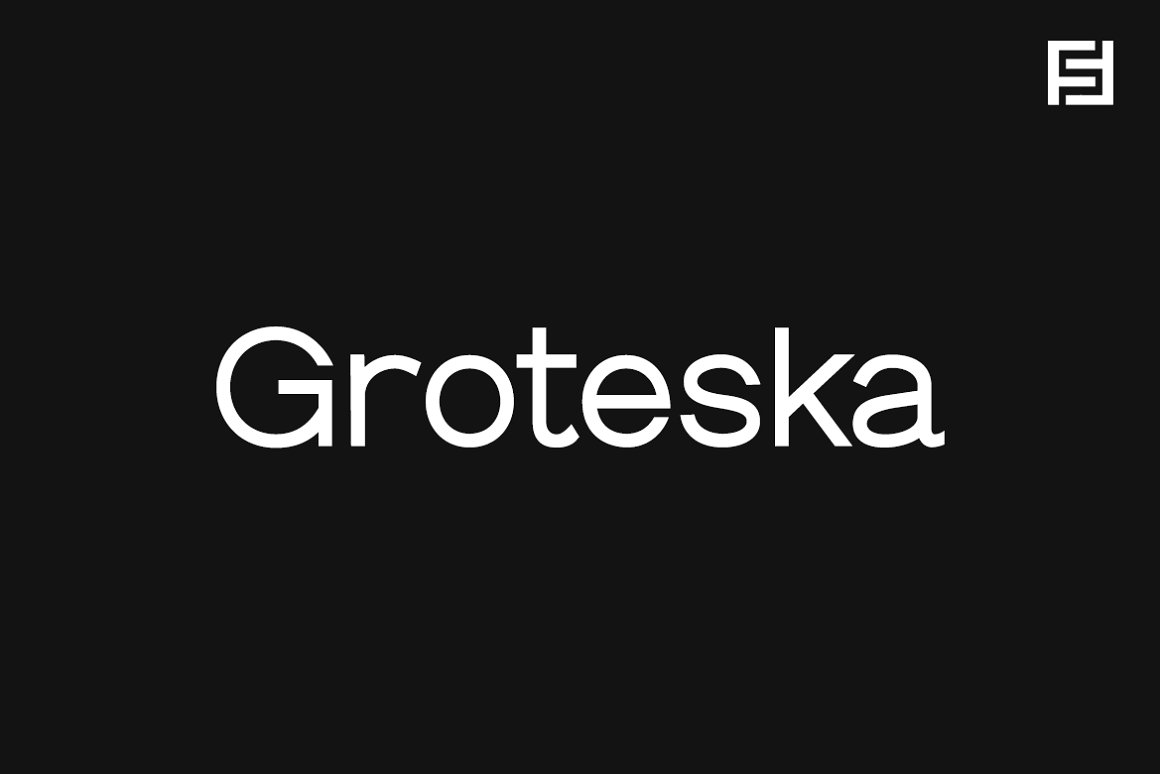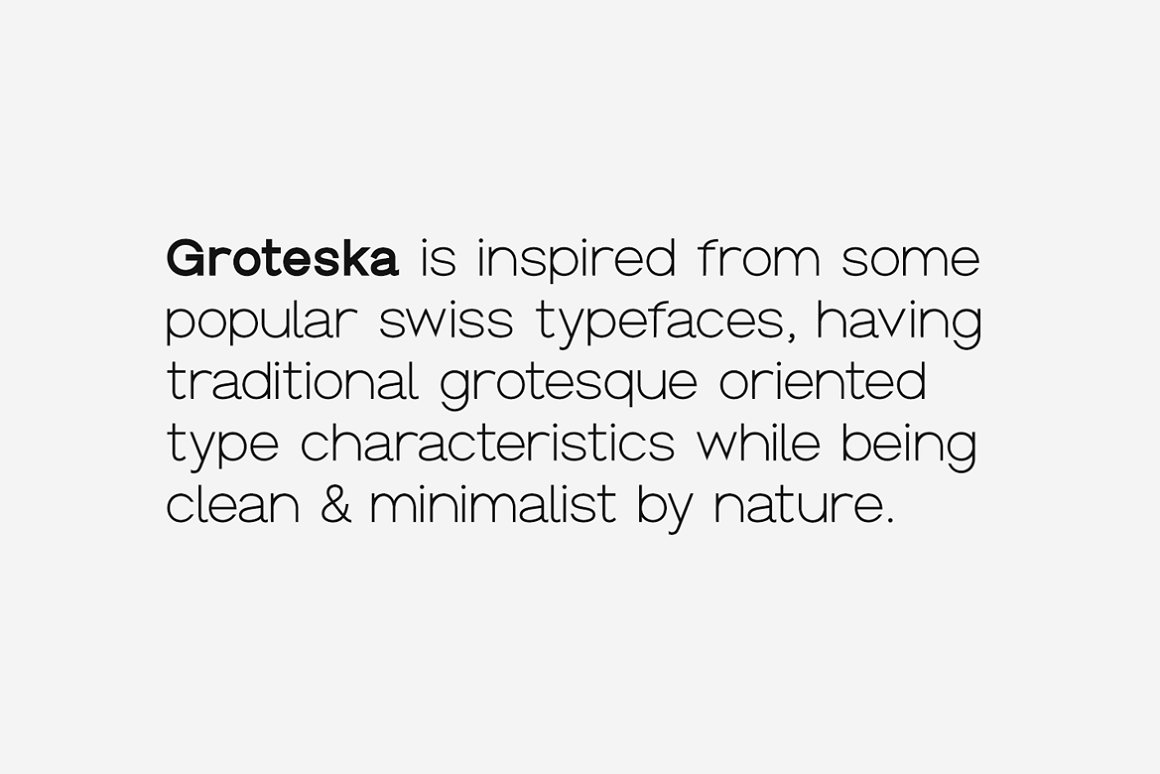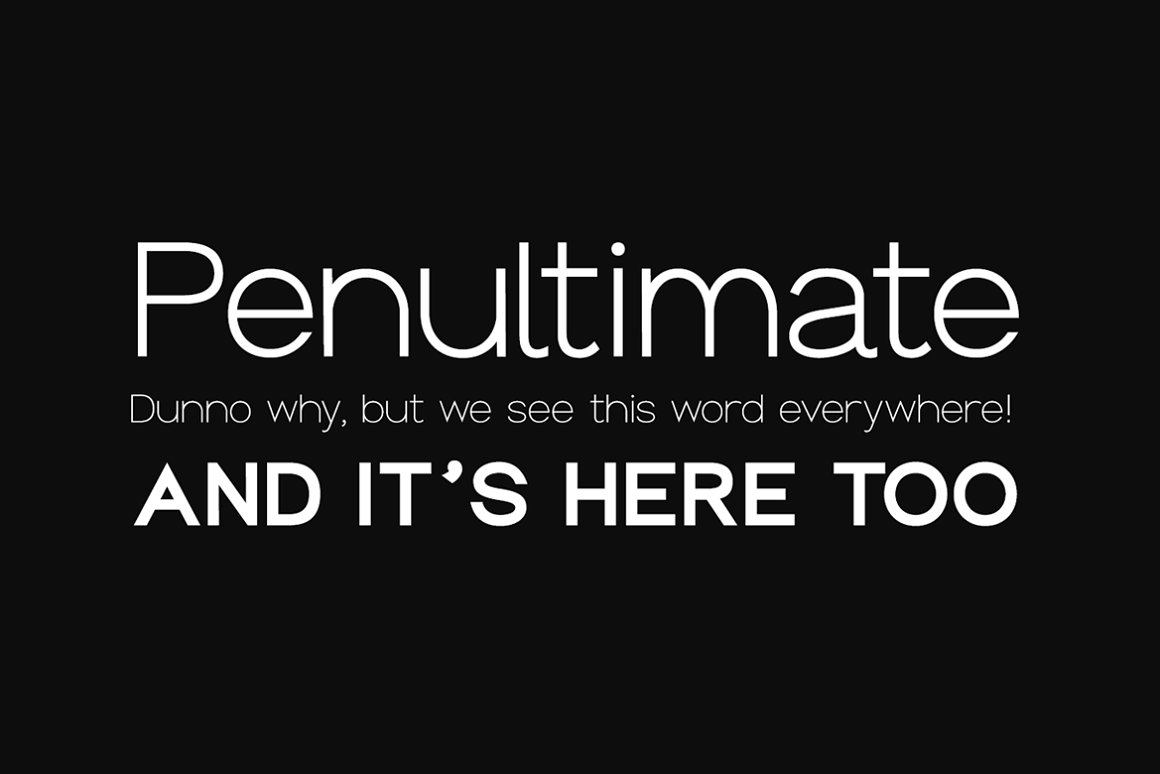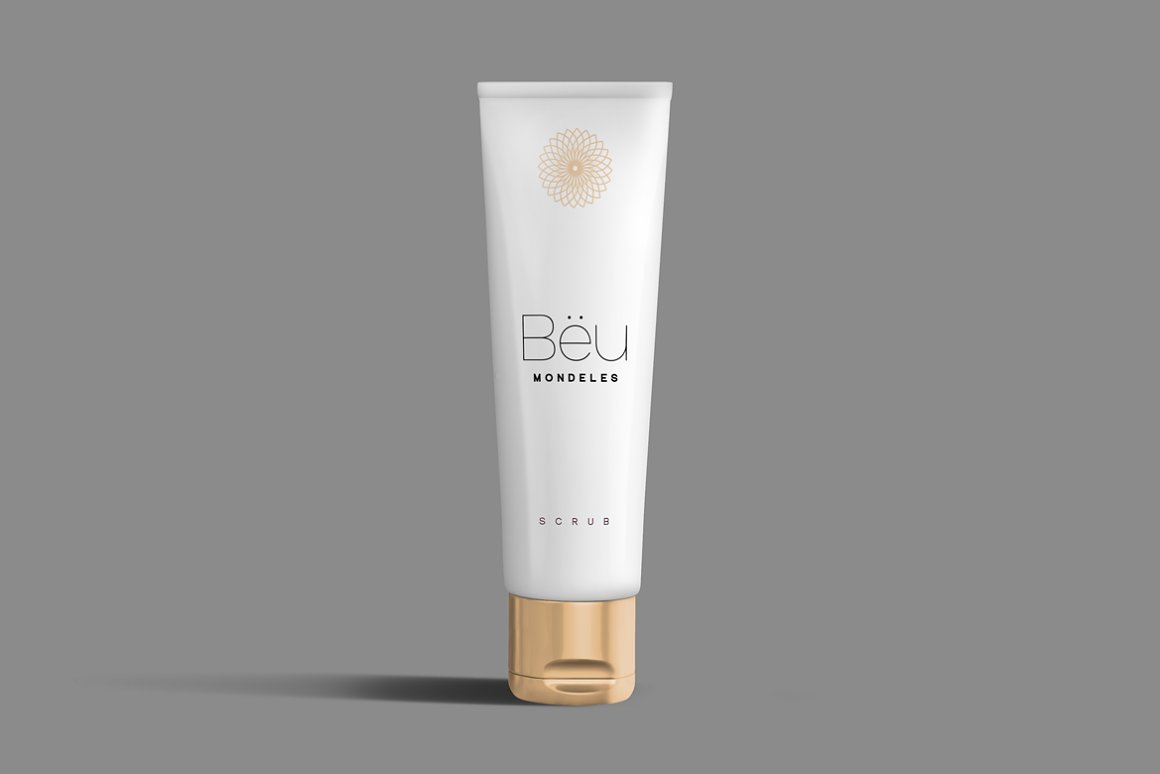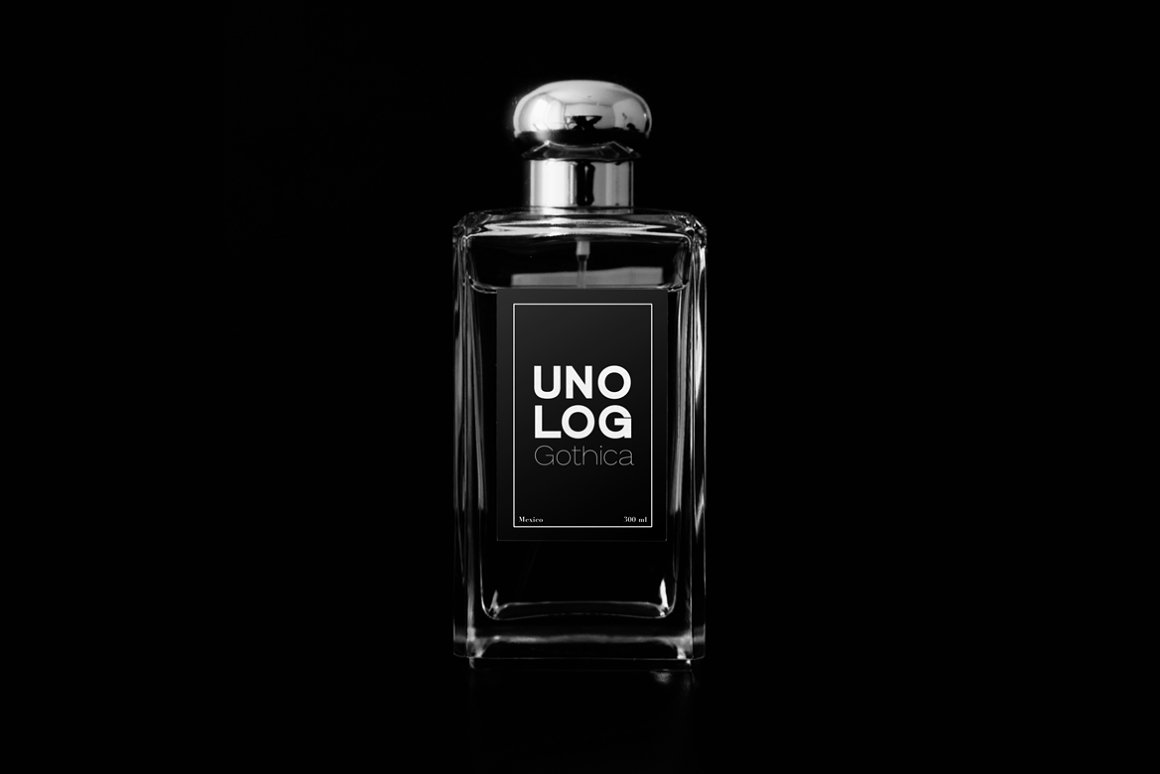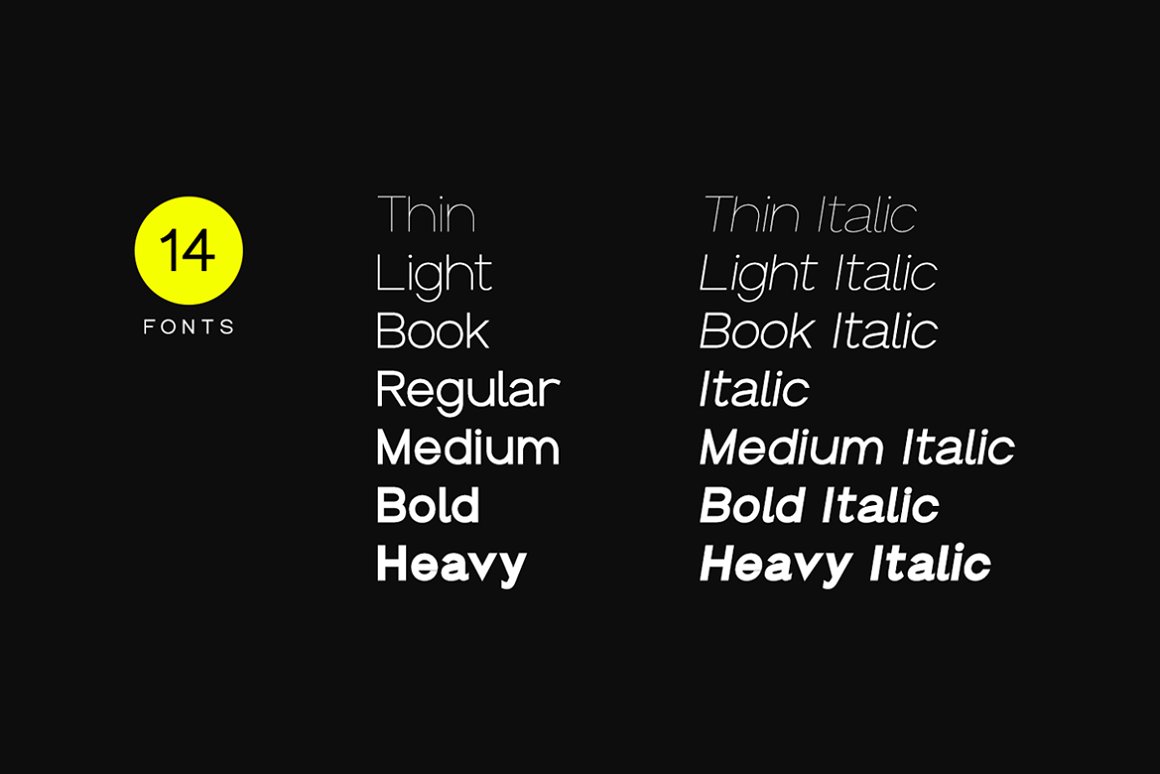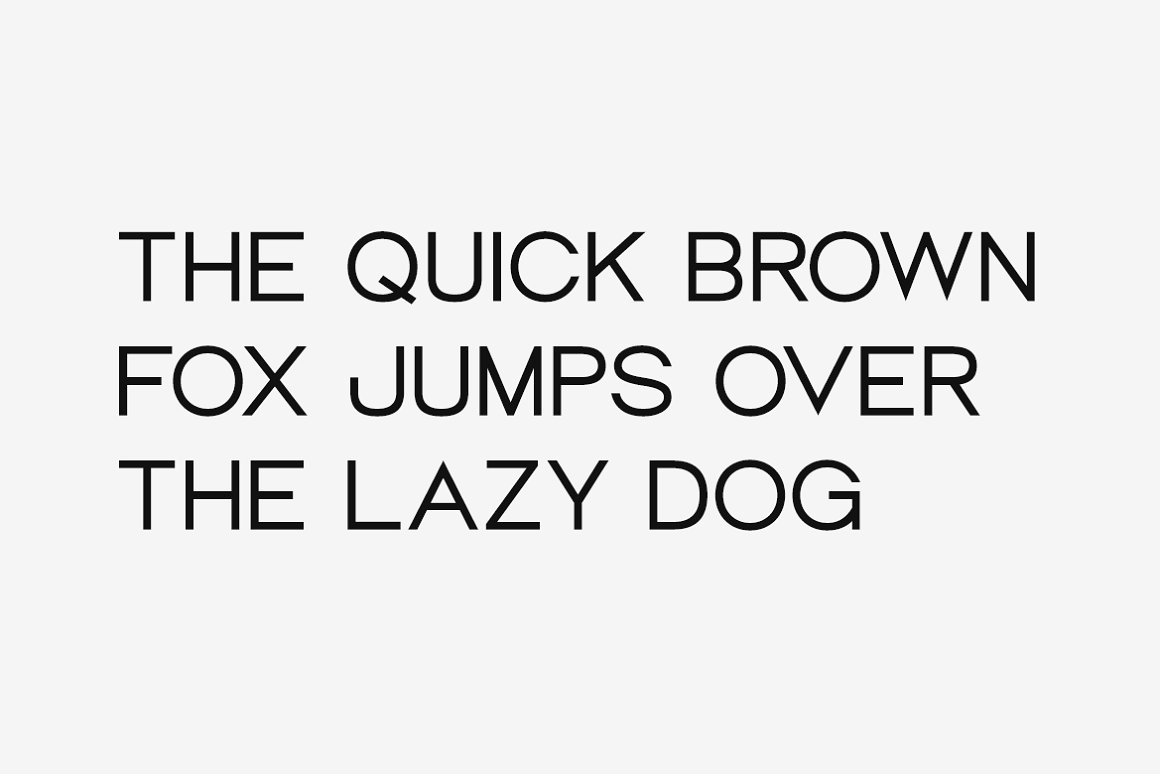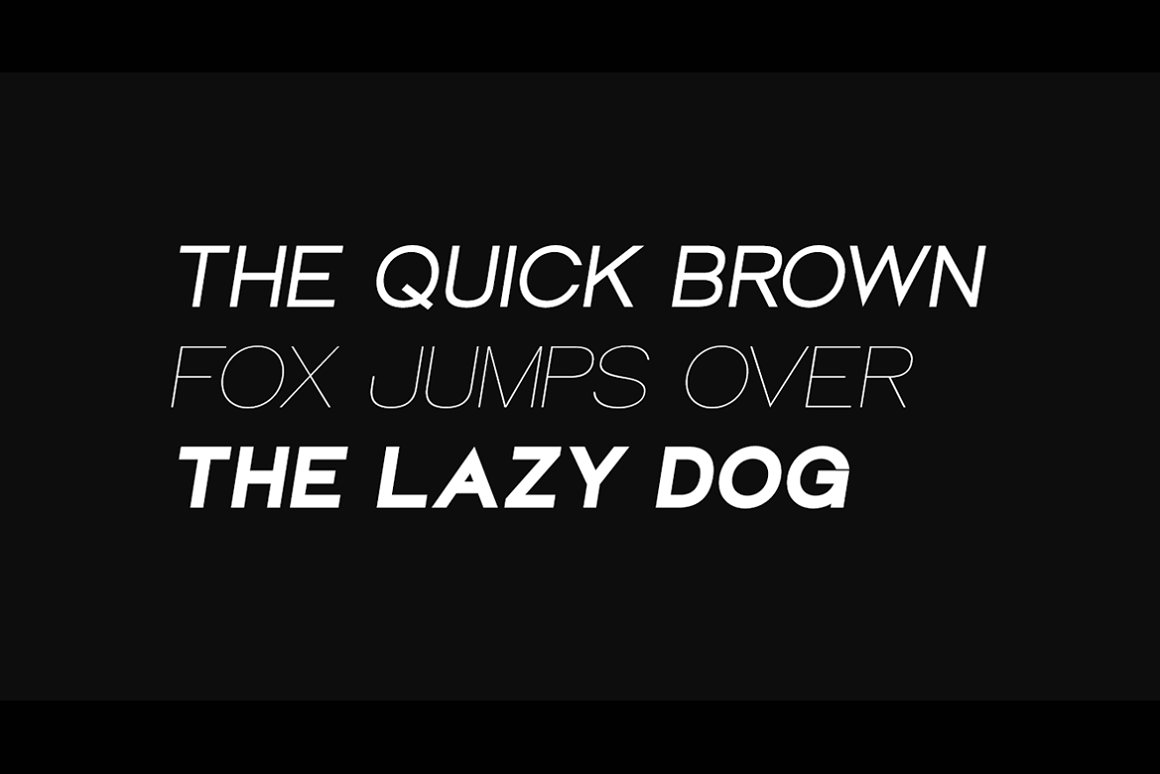
Groteska is a modern sans-serif typeface family inspired by classic grotesque typography with a clean contemporary finish.
Groteska is a modern sans-serif typeface family inspired by classic grotesque typography with a clean contemporary finish. Built with balanced proportions, simple forms, and strong readability, it provides a flexible type system for professional design work. Suitable for branding, editorial layouts, websites, applications, corporate identities, and everyday communication.
Groteska includes extended Latin language support covering Western European, Central European, Baltic, Nordic and South Eastern European languages.